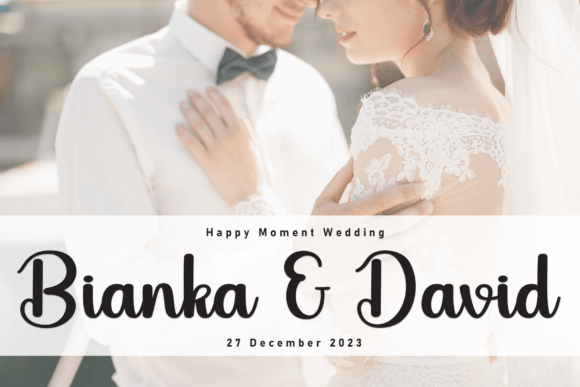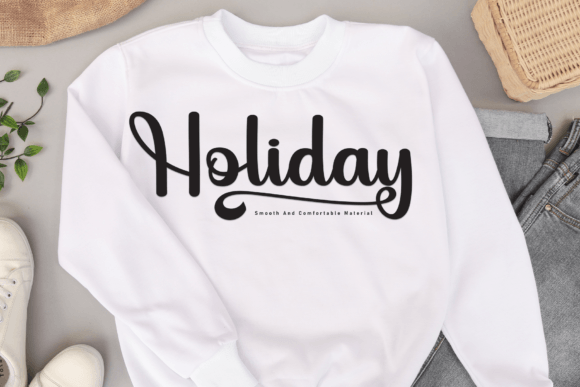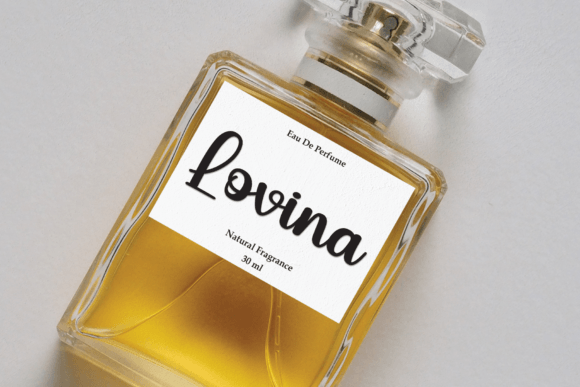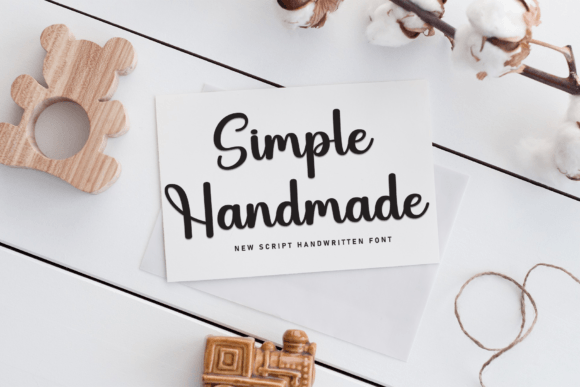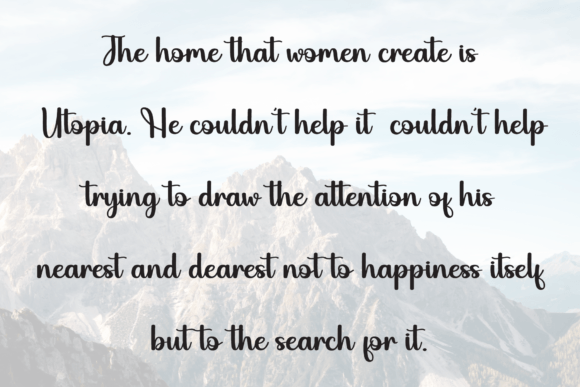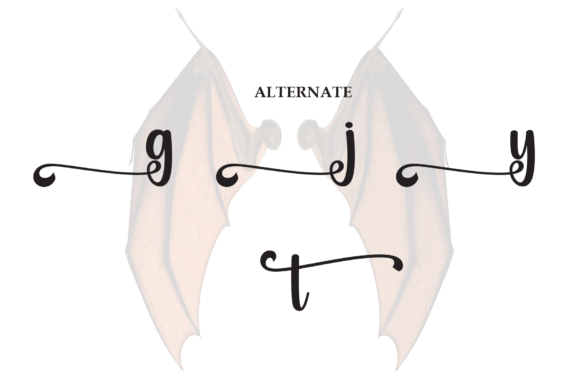
Batwing Font: Add a Touch of Whimsy to Your Designs
Batwing is a delightful handwritten display font that is sure to bring a smile to your face. With its sweet and friendly demeanor, this font is perfect for adding a fun touch to your designs. Whether you’re creating wedding invitations, greeting cards, or any other project that needs a dash of personality, Batwing font is an excellent choice.
What Makes Batwing Font So Special?
Batwing font is a beautifully crafted handwritten display font that exudes warmth and friendliness. Its unique charm lies in its ability to convey a sense of playfulness and approachability, making it ideal for designs that require a personal touch. The font’s sweet and gentle curves make it perfect for creating eye-catching titles, headings, and text that needs to stand out.
Wedding invitations and cards are a great way to showcase the Batwing font’s capabilities. The font’s elegant yet playful style makes it perfect for creating beautiful and memorable wedding stationery. Imagine sending out wedding invitations that feature the Batwing font, with its delicate curves and sweet charm, to set the tone for your special day. You can also use the font to create lovely greeting cards for birthdays, anniversaries, and other celebrations.
Ideal for Crafters and Designers
Batwing font is a versatile font that can be used for a wide range of design projects. Crafters and designers will love working with this font, as it’s perfect for creating unique and eye-catching designs. Whether you’re designing t-shirts, mugs, or other craft projects, Batwing font is sure to add a touch of personality to your work. You can also use the font to create stunning digital designs, such as social media graphics, blog posts, and more.
Key Features of Batwing Font
- Sweet and friendly handwritten display font: Batwing font is a beautifully crafted handwritten font that’s perfect for adding a personal touch to your designs.
- Cute and fun: The font’s playful style makes it ideal for designs that require a dash of personality.
- Ideal for wedding invitations and cards: Batwing font is perfect for creating beautiful and memorable wedding stationery and greeting cards.
- Versatile: The font can be used for a wide range of design projects, from craft projects to digital designs.
Tips for Using Batwing Font
- Use it for headings and titles: Batwing font is perfect for creating eye-catching headings and titles that need to stand out.
- Pair it with other fonts: Batwing font pairs well with other fonts, so feel free to experiment with different combinations to create unique and interesting designs.
- Experiment with colors and textures: Batwing font looks great in a variety of colors and textures, so don’t be afraid to get creative and try out different effects.
Batwing font is a sweet and friendly handwritten display font that’s perfect for adding a fun touch to your designs. With its unique charm and versatility, this font is ideal for crafters and designers who want to create eye-catching and memorable designs. Whether you’re creating wedding invitations, cards, or other design projects, Batwing font is sure to bring a smile to your face and a touch of personality to your work.